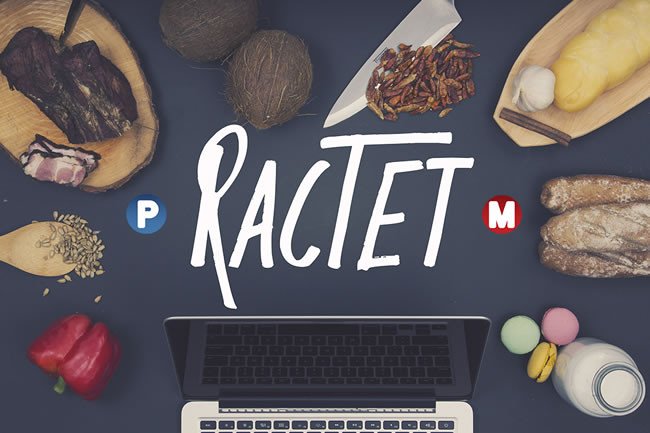
Ractet Font
Prepare to be enthralled by 'Ractet Font,' an extraordinary display typeface that exudes creativity and innovation. With its unique character, 'Ractet' propels your designs into a realm of captivating elegance. Dive into a world of endless possibilities, where every letter becomes an art piece, leaving an indelible impression on anyone who encounters your designs.
'Ractet' effortlessly blends the timeless allure of classic typography with a contemporary twist, resulting in a font that resonates with both tradition and modernity. Its meticulously crafted strokes and stunning curves evoke a sense of harmony and balance, creating a visual symphony that is both pleasing to the eye and captivating to the soul.
Let 'Ractet' be your muse, as it inspires you to craft invitations that captivate, greeting cards that warm hearts, branding materials that exude professionalism, and business cards that leave a lasting impression. Unleash your creativity and let 'Ractet' add a touch of sophistication to your quotes, posters, and any other design project you embark on.
With 'Ractet' as your creative companion, you'll discover a font that's not just a collection of letters, but an artistic journey that transforms your designs into masterpieces. Experience the transformative power of 'Ractet' today and elevate your designs to new heights of brilliance!